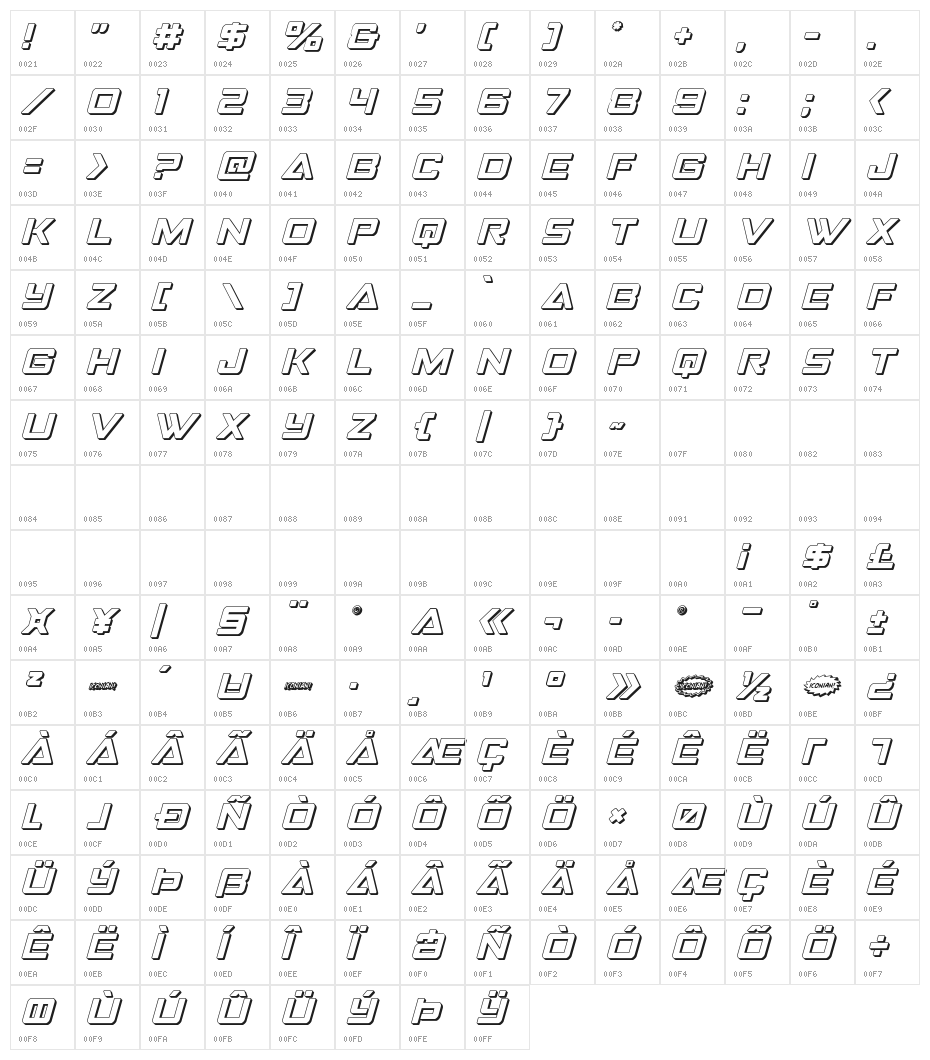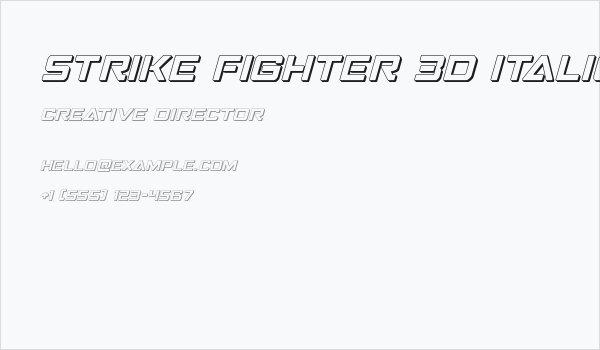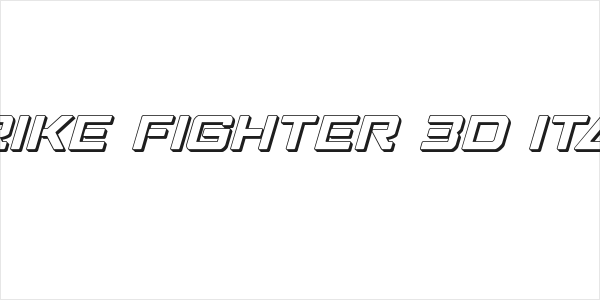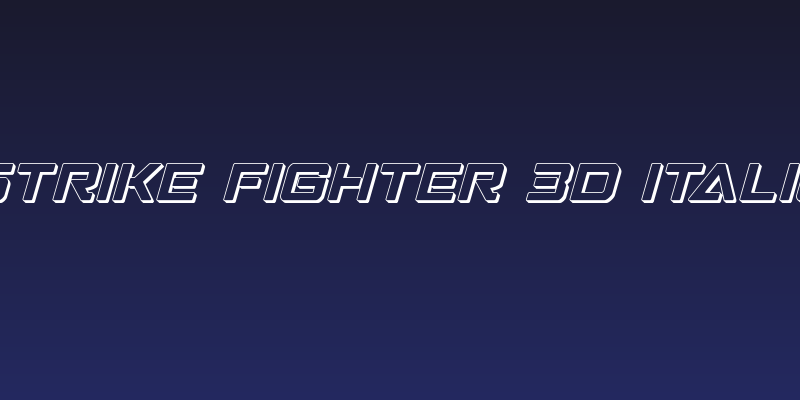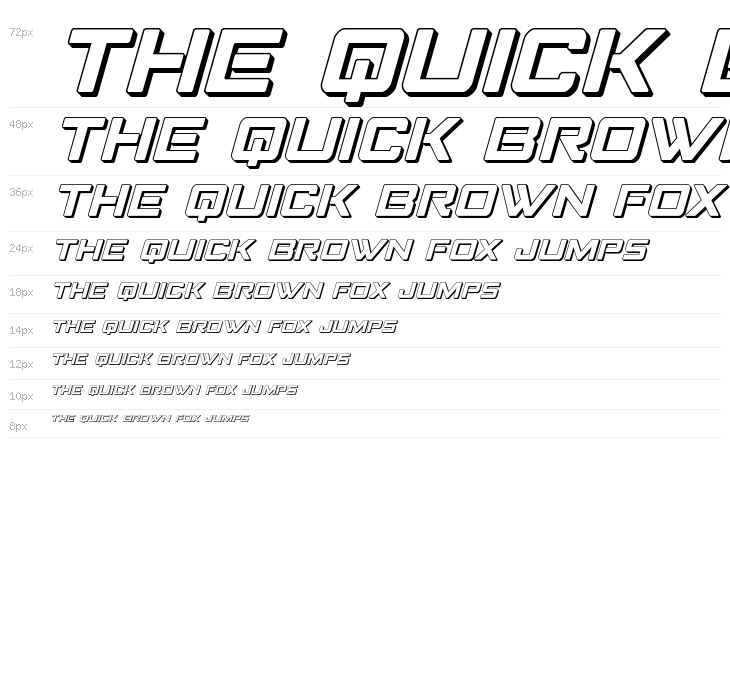
Strike Fighter 3D Italic Font
Strike Fighter 3D Italic Description
This font features a bold, futuristic design with a 3D effect that gives it a dynamic and striking appearance. The characters are italicized, adding a sense of motion and speed. Each letter is outlined, creating a layered look that enhances the depth and dimensionality. The font maintains a consistent width and spacing, ensuring readability while emphasizing its modern aesthetic. The angular and geometric shapes of the letters contribute to its tech-inspired style, making it ideal for projects that require a contemporary and edgy look.
| Proposed Projects | Ideal for video game titles, tech branding, sci-fi movie posters, and sports team logos. |